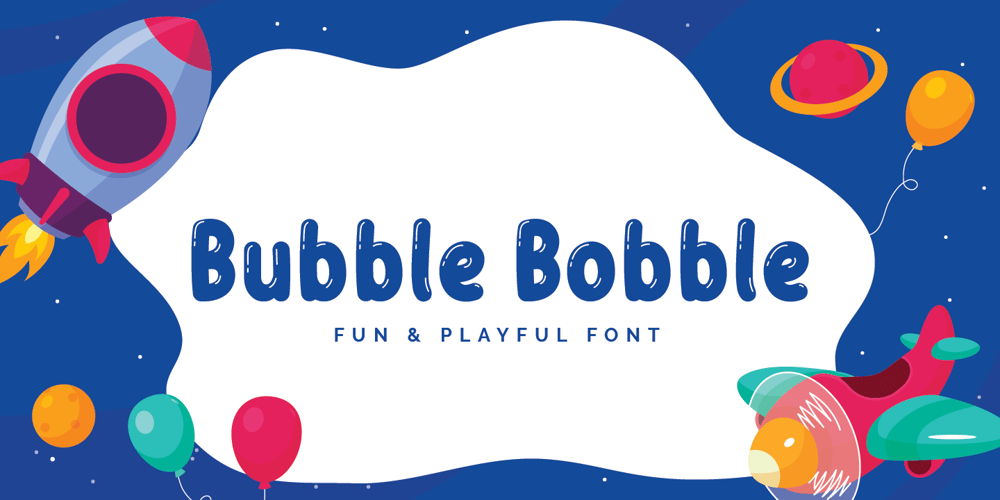
Bubble Bobble Font Family was designed by Abdul Malik Wisnu and published by Almarkha Type. Bubble Bobble contains 1 styles and family package options. Bubble Bobble is such a Fun & Playful Font. Use it for any project that needs a cheerful and playful look!Perfect for labels, quotes, posters, DIY projects, branding, packaging, greeting cards, websites, photography kids, window art, scrapbooking, tags and so much more!Thank you